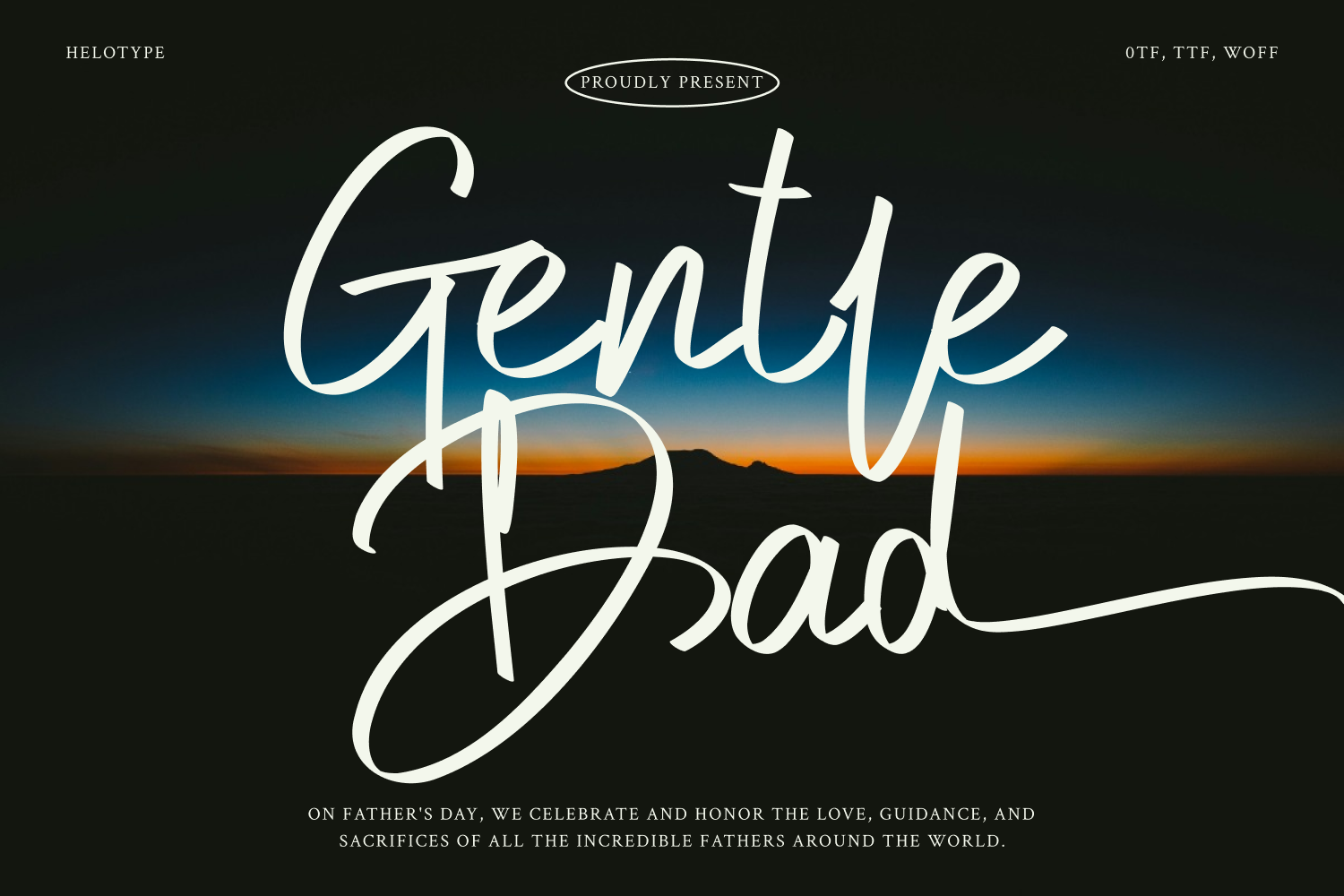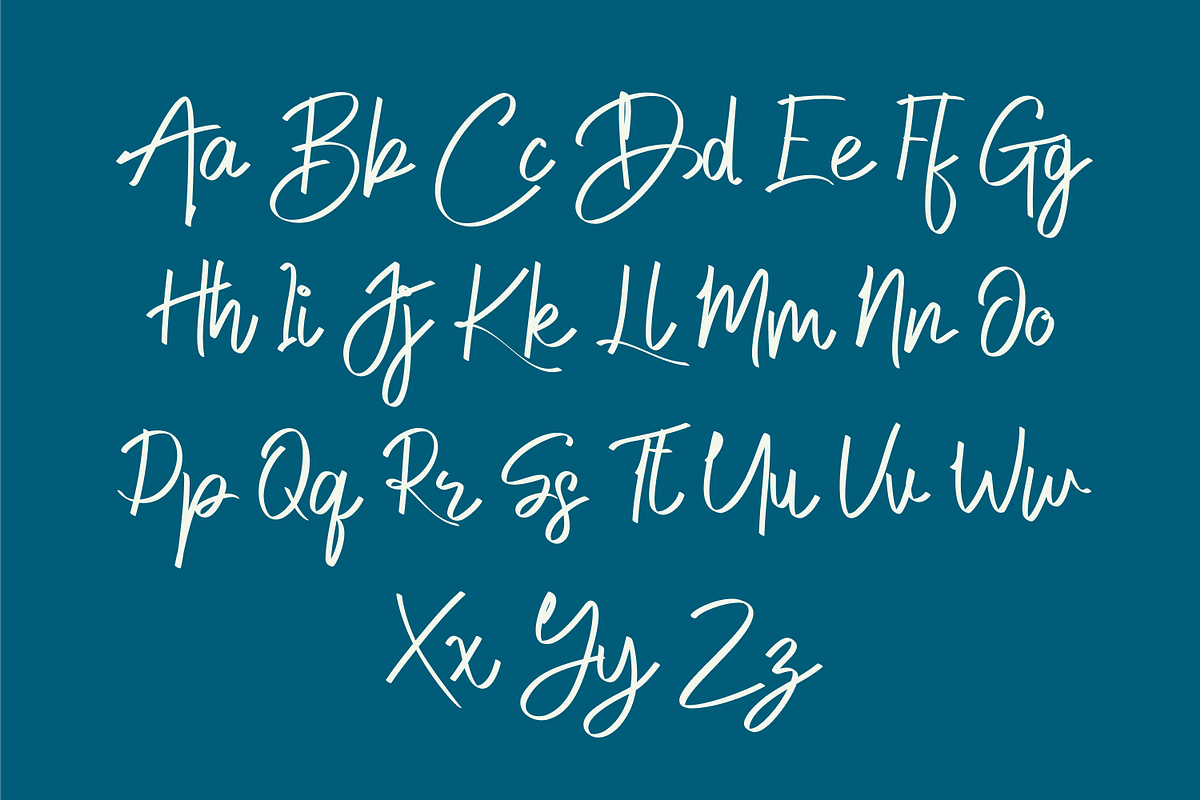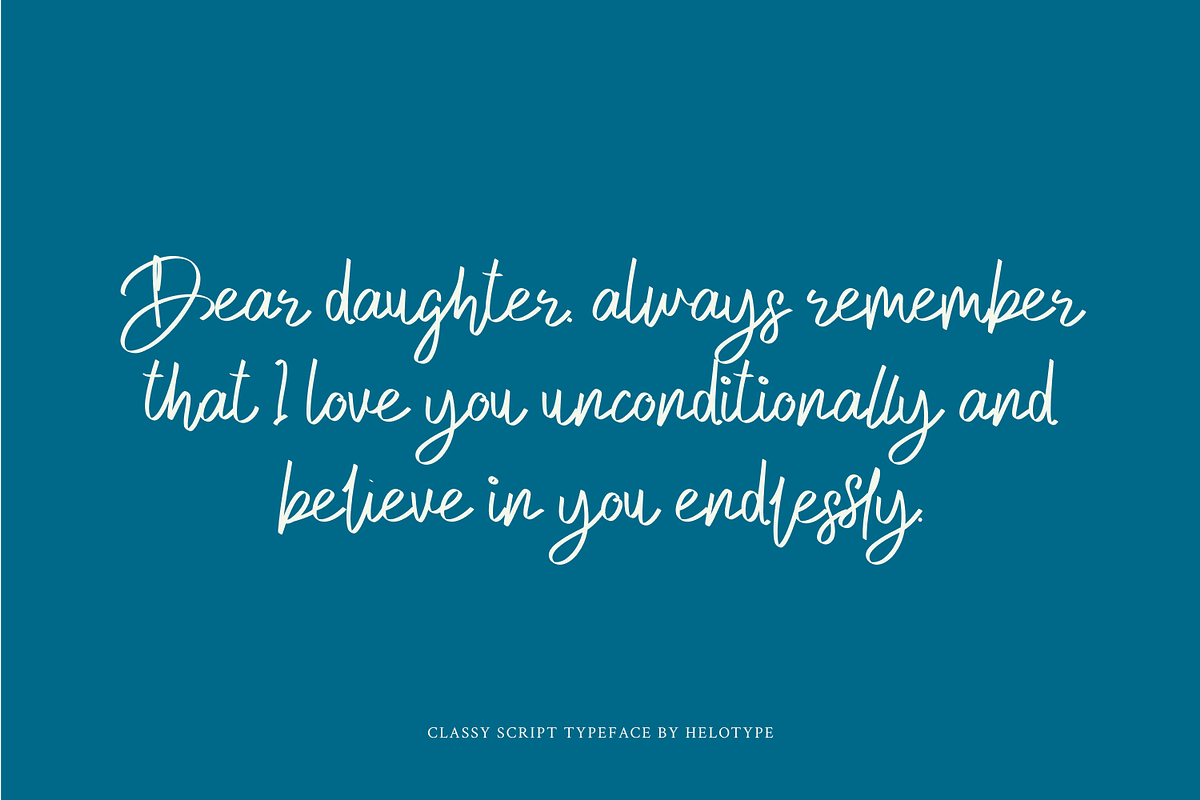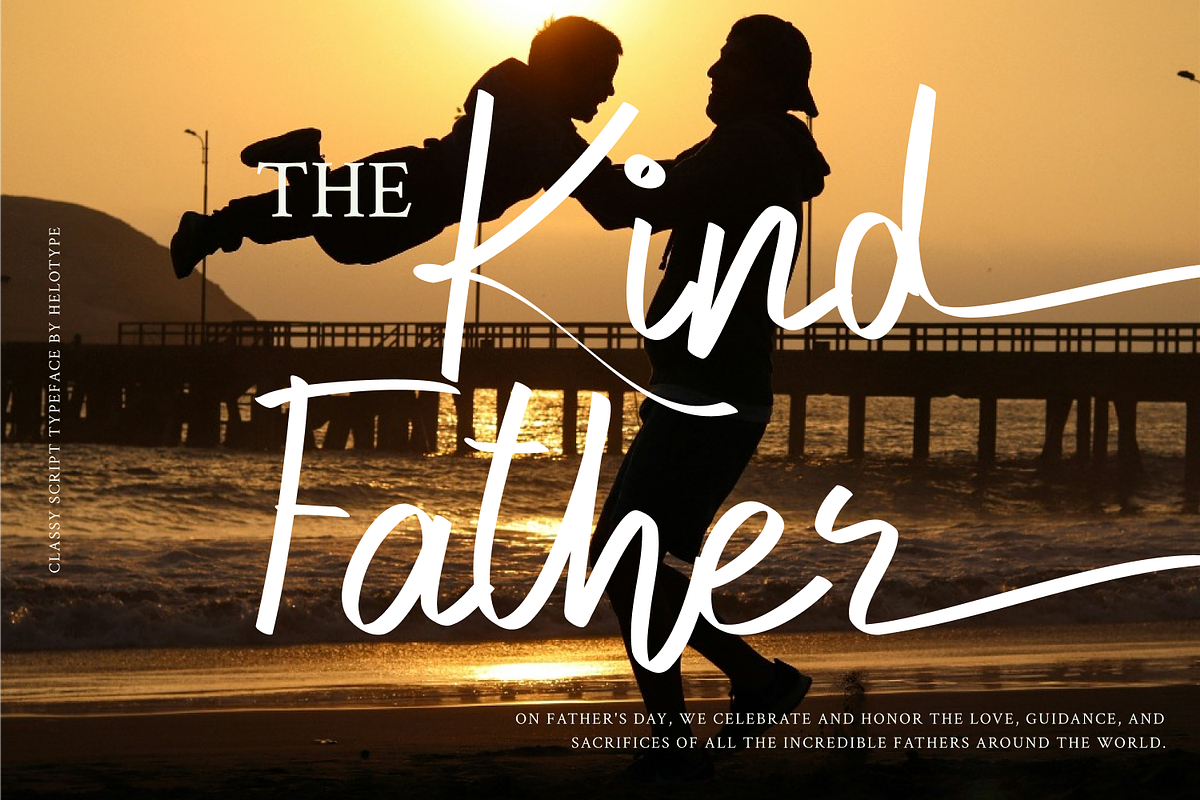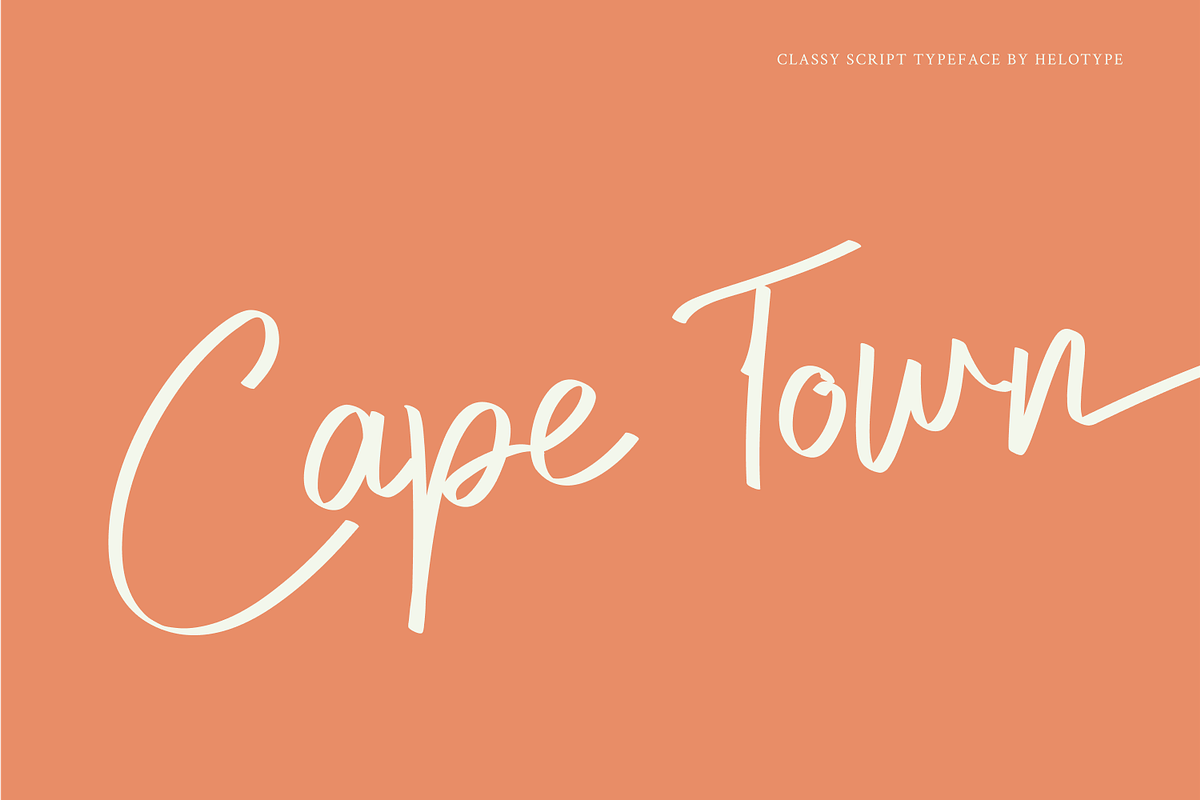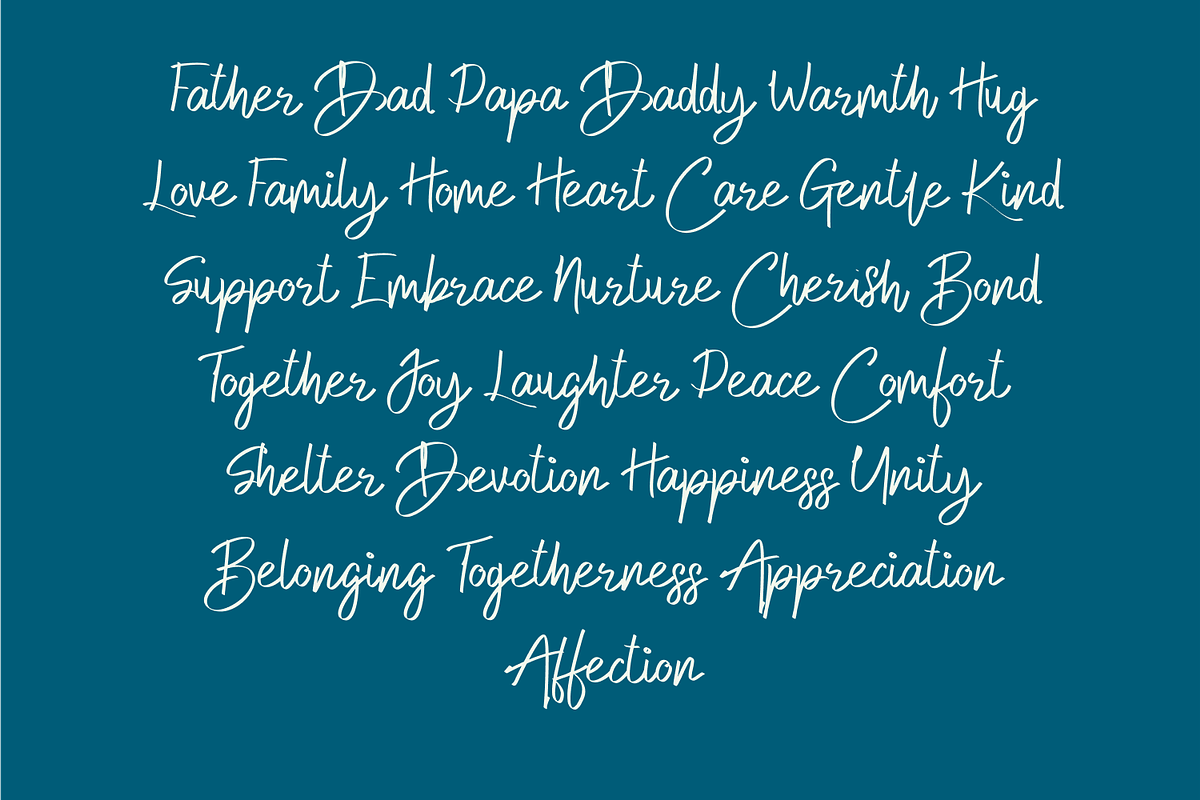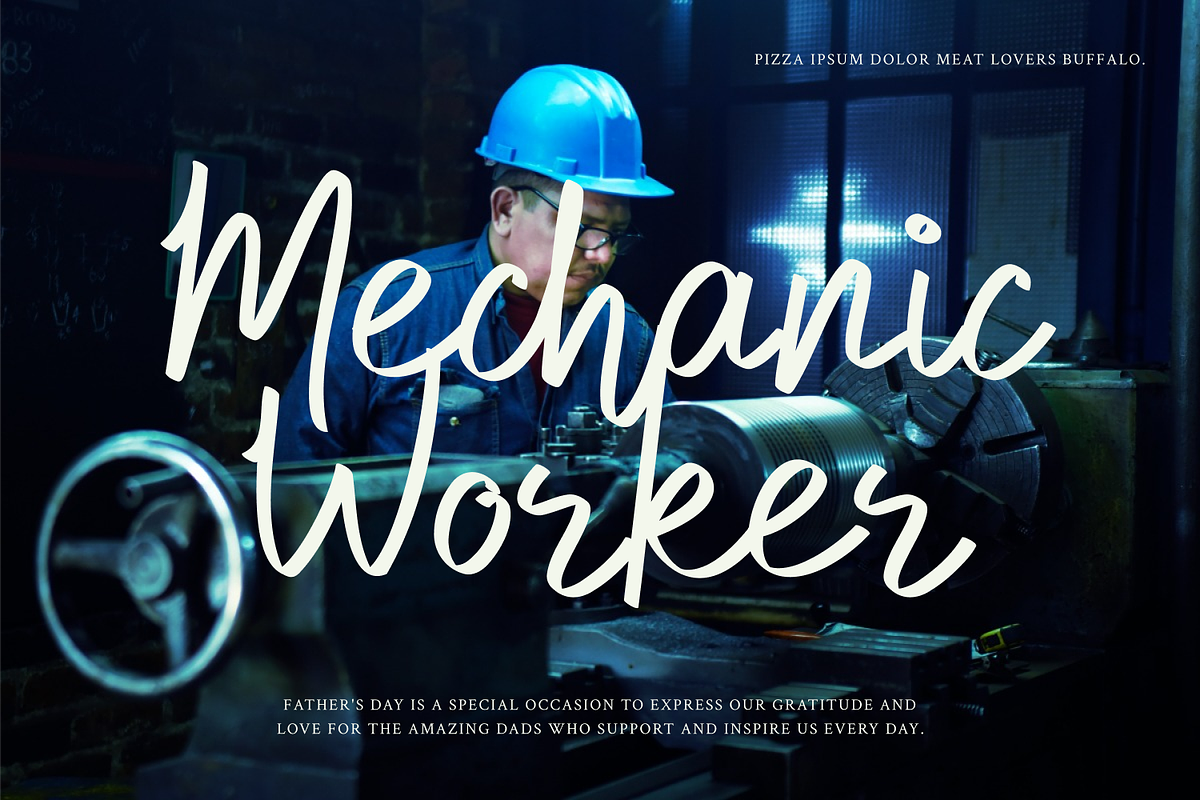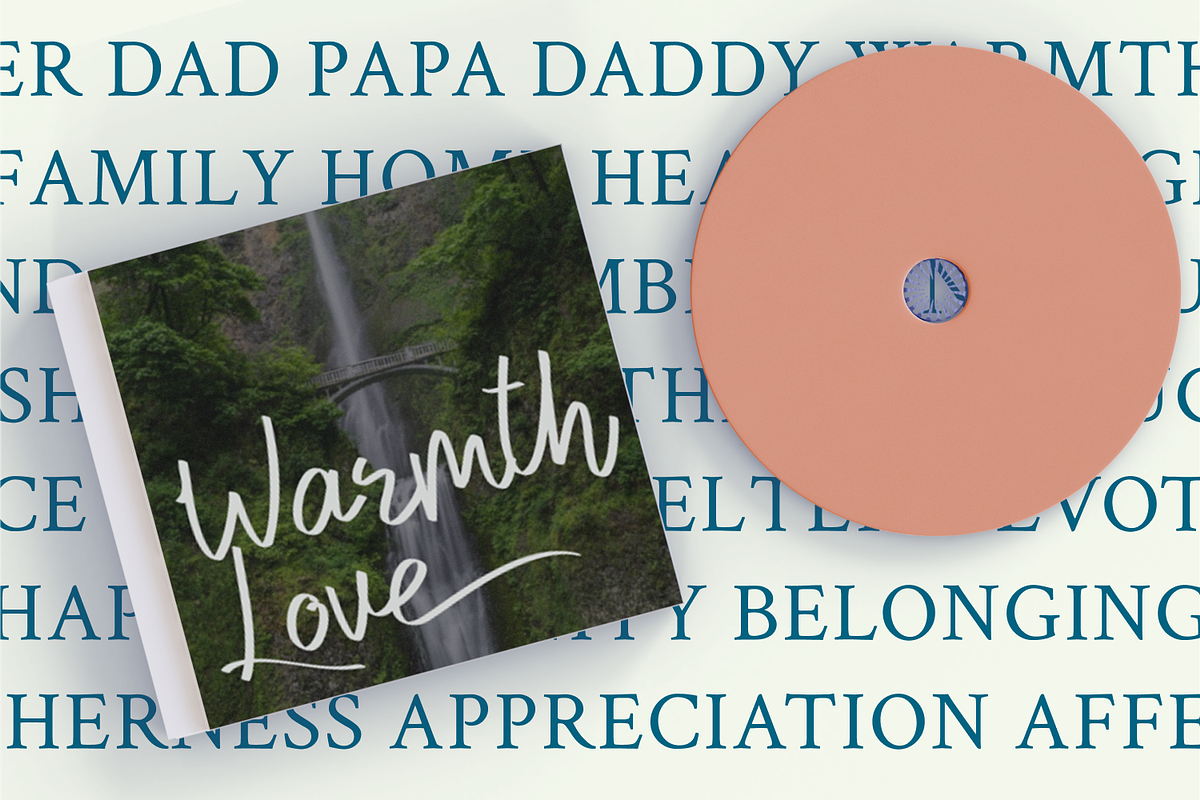
Gentle Dad Font
Gentle Dad Font captures the essence of fatherhood with its warm and gentle feel. It's perfect for creating heartfelt Father's Day cards, mugs, t-shirts, and other personalized gifts. The script is easy to use and includes upper and lowercase letters, stylistic ligature, alternates, numbers, and symbols.
- stylistic ligature and alternates